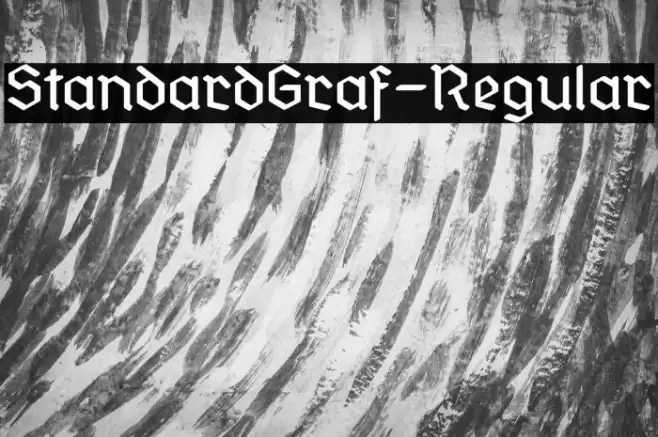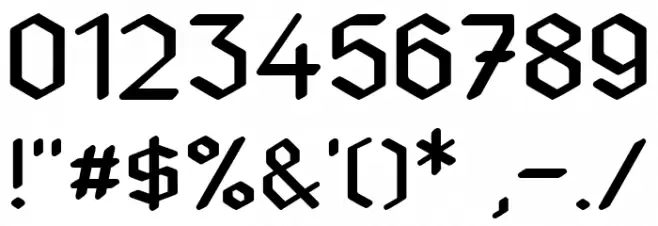
StandardGraf-Regular Font
StandardGraf-Regular Description
This font features a bold, angular design reminiscent of traditional blackletter styles but with a modern twist. Its characters are constructed with sharp edges and geometric forms, giving it a distinctive and striking appearance. The uppercase and lowercase letters maintain a consistent style, with a strong emphasis on vertical and diagonal strokes. The numerals and special characters follow the same design principles, ensuring uniformity across the font. This font's unique aesthetic makes it suitable for projects that require a bold and impactful visual statement.
A bold, angular font with a modern blackletter style from Uncategorized fonts.
- Proposed Projects: Ideal for branding, posters, album covers, and any project needing a bold, distinctive look.